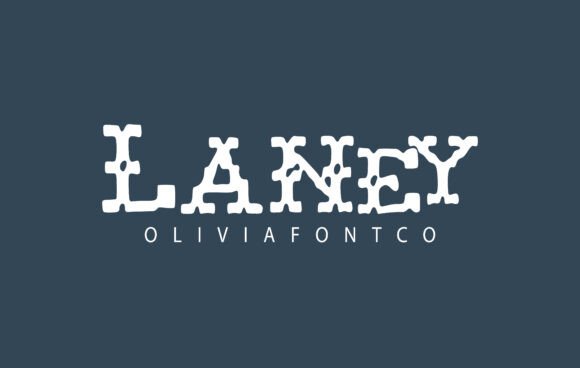
Laney Font: Authentic Handwritten Style for Makers
Designing Candle Labels with Laney Font and Romantic Typography
When I first opened the file to design a new line of soy candle labels, I knew that Laney font is an authentic handwritten font with a romantic touch that would perfectly capture the cozy, artisanal vibe my customers love. Expertly designed to be a true favorite, this font has the potential to take your creative ideas to the highest level, especially when you are trying to convey warmth through physical products like glass jars and textured paper labels. While browsing through various Slab Serif options and other decorative Fonts, I often struggle to find a typeface that feels genuinely personal rather than digitally manufactured, but Laney bridges that gap beautifully for handmade goods.
The visual personality of Laney brings a softness to product packaging that rigid typography simply cannot achieve. As I typed out scent names like "Wild Lavender" and "Amber Vanilla," the letterforms flowed with a natural rhythm that mimicked actual penmanship. This authenticity is crucial for small business owners because it signals to the buyer that a real person crafted this item. When designing labels, I found that Laney works best as a display font for the product name or scent descriptor, while pairing it with a clean, minimalist sans serif for the safety warnings and burn instructions. This contrast ensures the label remains readable at smaller sizes while retaining that signature romantic charm on the shelf.
Laney for Wedding Invitations and Elegant Stationery Suites
Creating wedding stationery requires a delicate balance of legibility and emotion, and using Laney alongside complementary Slab Serif or script Fonts can elevate an entire invitation suite from standard to breathtaking. Because Laney font is an authentic handwritten font with a romantic touch, it naturally lends itself to the sentimental nature of weddings, engagement parties, and anniversary celebrations. Expertly designed to be a true favorite, this font has the potential to take your creative ideas to the highest level when you are mocking up welcome signs, place cards, or menu designs that need to feel intimate yet polished.
In my recent project designing a printable wedding welcome sign, I used Laney for the couple’s names and the header text. The organic curves of the letters added a layer of sophistication without feeling stuffy or overly formal. For fellow stationery designers, it is important to note how Laney handles spacing; it breathes well, allowing for elegant kerning that looks intentional on large-format prints. However, because it is a distinctively styled typeface, I recommend using it sparingly within the suite. Let Laney shine on the main focal points, such as the invitation card itself or the seating chart header, and utilize a simple serif or modern sans serif for the logistical details like addresses and times. This strategic font pairing ensures guests can easily read the important information while still being swept away by the romantic aesthetic of the overall design.
Readability Tips for Digital Downloads and Printable Wall Art
Selling digital downloads and printable wall art means your typography must translate perfectly from screen to home printer, and Laney provides the versatility needed for these high-demand creative assets. Whether you are listing on Etsy or selling through your own site, incorporating Laney into your designs allows you to tap into the trending market for farmhouse decor, nursery art, and inspirational quotes. Since Laney font is an authentic handwritten font with a romantic touch, it resonates deeply with buyers looking for decor that feels curated and soulful rather than mass-produced. Expertly designed to be a true favorite, this font has the potential to take your creative ideas to the highest level by turning simple phrases into sellable art pieces.
When creating printable wall art, consider the end user's printing capabilities. Laney maintains its integrity even when printed on standard home inkjet printers, which is a massive selling point for digital product creators. I have tested this font on everything from heavy cardstock to standard copy paper, and the ink spread does not compromise the delicate strokes. For commercial sellers, always verify your licensing before offering templates where the customer can edit the text themselves. If you are selling pre-made prints, Laney serves as an excellent primary typeface for short, impactful quotes. Just remember to leave adequate white space around the lettering; handwritten fonts like this one need room to breathe to maintain their romantic, uncluttered appeal in a framed setting.
Crafting Boutique Packaging and Product Tags with Laney
Unboxing experiences are a critical part of brand retention for handmade sellers, and integrating Laney into your packaging design can transform a simple shipment into a memorable brand moment. While you might typically associate Slab Serif typefaces with sturdy boxes and shipping labels, Laney adds a necessary layer of femininity and care to tags, tissue paper stamps, and thank-you cards. As one of those rare Fonts that feels both professional and personal, it helps establish a cohesive brand identity that customers recognize instantly. Laney font is an authentic handwritten font with a romantic touch, making it ideal for boutiques selling jewelry, knitwear, bath products, or vintage items where storytelling is key.
I recently redesigned my shop’s hang tags using Laney for the "Handmade with Love" messaging and my shop logo. The result was a tag that felt more like a keepsake than disposable packaging. For makers using cutting machines like Cricut or Silhouette, Laney cuts cleanly due to its well-defined vector paths, avoiding the jagged edges that sometimes plague lower-quality handwritten fonts. This makes it perfect for vinyl decals on mailers or adhesive labels on product bags. When using Laney for packaging, think about hierarchy: use the font for emotional connection points (like "Thank You" or product names) and reserve utilitarian fonts for barcodes and return addresses. This approach maximizes the romantic impact of the typeface while maintaining functional clarity.
Font Pairing Strategies for Social Media Graphics and Branding
Building a recognizable brand across Instagram, Pinterest, and TikTok requires consistent typography, and Laney serves as an exceptional anchor font for social media graphics and promotional materials. When scrolling through feeds, users stop for visuals that feel human and relatable, which is exactly where Laney font is an authentic handwritten font with a romantic touch excels over generic system fonts. Expertly designed to be a true favorite, this font has the potential to take your creative ideas to the highest level by giving your digital content the same bespoke quality as your physical products. While many creators rely solely on bold Slab Serif or trendy sans serif Fonts for readability, adding Laney as an accent creates visual interest and emotional resonance.
For effective social media design, pair Laney with a bold, high-contrast sans serif for headlines to ensure readability on mobile screens, then use Laney for subheaders, captions overlaid on images, or highlighted keywords. For example, a reel cover promoting a new collection could feature a bold title in a block font, with "New Arrival" written in Laney underneath to soften the sales pitch. This combination signals professionalism while maintaining the maker’s personal touch. Always test your graphics at thumbnail size; if the intricate details of Laney get lost, increase the weight or size relative to the background. Consistency is key, so create a brand kit that defines exactly when and how you use Laney versus your supporting typefaces to build long-term audience recognition.